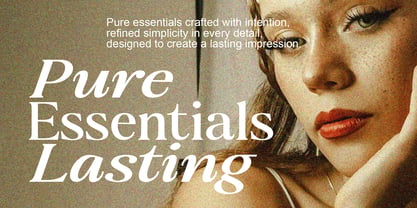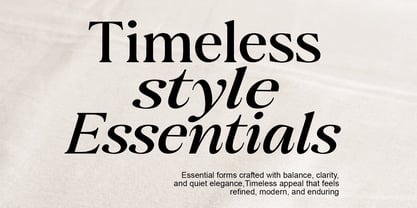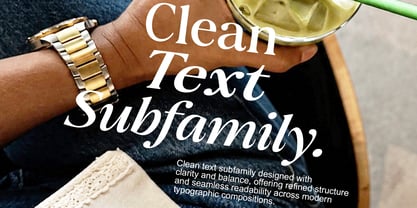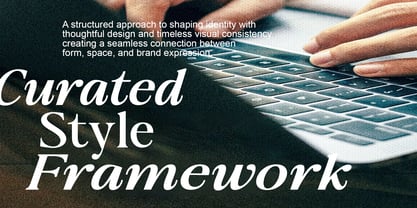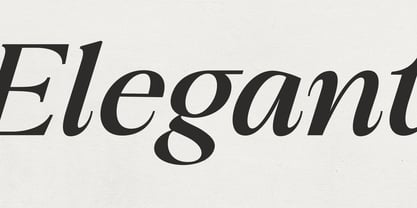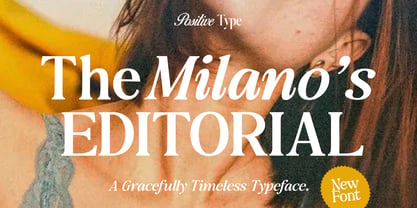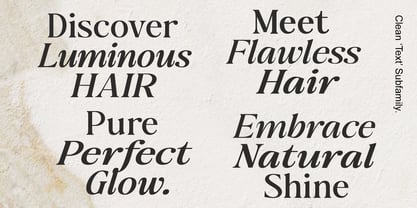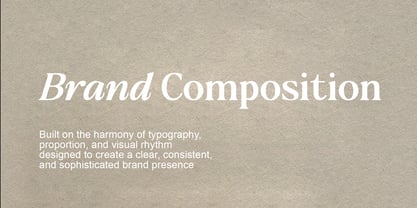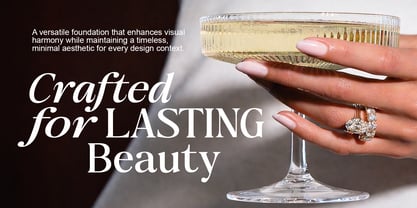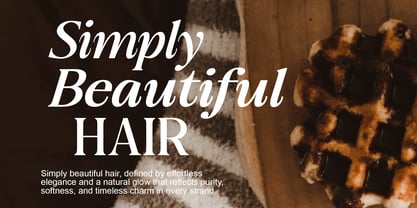
The Milanos Editorial
by Positive Type
The The Milanos Editorial Font Family was designed by Nur Hayati and published by Positive Type. The Milanos Editorial contains 30 styles and family package options. More about this family
The Milano’s Editorial, A Gracefully Timeless Typeface, The Milano’s Editorial is a sophisticated serif typeface crafted to bring elegance, refinement, and modern editorial beauty into every design project. Inspired by luxurious fashion magazines, classic European typography, and contemporary branding aesthetics, this font delivers a perfect balance between timeless sophistication and artistic expression. Designed with carefully shaped curves, stylish contrast, and graceful italics, The Milano’s Editorial is ideal for premium branding, fashion campaigns, luxury packaging, editorial layouts, wedding designs, social media content, cosmetic branding, and modern logo creation. This collection comes with 30 beautifully crafted styles, giving you complete flexibility to create elegant visual compositions — from clean minimal headlines to expressive high-fashion typography. Included Styles, Regular,Italic,Contrast,Italic Contrast,Narrow,Narrow Contrast,Oblique,Oblique Contrast,Oblique Narrow,Oblique Narrow Contrast,Condensed,Condensed Contrast,Condensed Oblique,Condensed Oblique Contrast,Condensed Italic,Condensed Italic Contrast,Expanded,Expanded Contrast,Expanded Narrow,Expanded Narrow Contrast,Expanded Oblique,Expanded Oblique Contrast,Expanded Oblique Narrow,Expanded Italic,Expanded Italic Contrast,Expanded Italic Narrow,Expanded Italic Narrow Contrast,Italic Narrow,Italic Narrow Contrast,Exp Obliq Nrw Cnt. Features, 30 Font Files,Elegant Serif Design,Fashion Editorial Style,High Contrast Letterforms,Beautiful Italic Variations,Multilingual Support,Uppercase & Lowercase,Numbers & Punctuation,PUA Encoded,Perfect for Branding & Luxury Design. Perfect For, Fashion Branding,Editorial & Magazine Design,Luxury Logos,Wedding Invitations,Cosmetic Packaging,Social Media Templates,Photography Branding,Product Packaging,Boutique & Lifestyle Brands,Elegant Typography Projects.